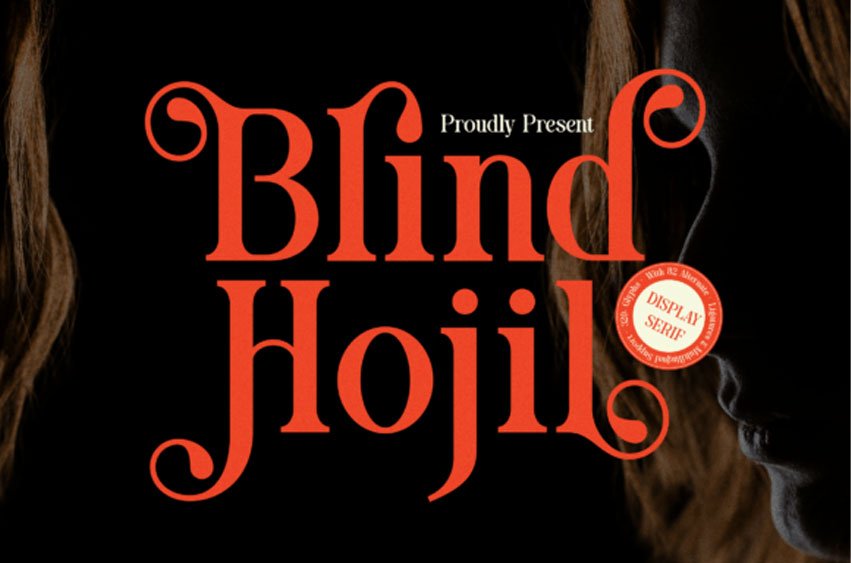
Blind Hojil Font
Blind Hojil Font is a bold and elegant serif font that is suitable for any projects such as: logos, branding projects, homeware designs, product packaging, mugs, quotes, posters, shopping bags, t-shirts, book covers, name card, invitation cards, greeting cards, label, photography, watermark, special events, and all your other lovely projects that need a Display Serif Font taste.
Every letter has a unique and beautiful touch, which will make your design come alive!